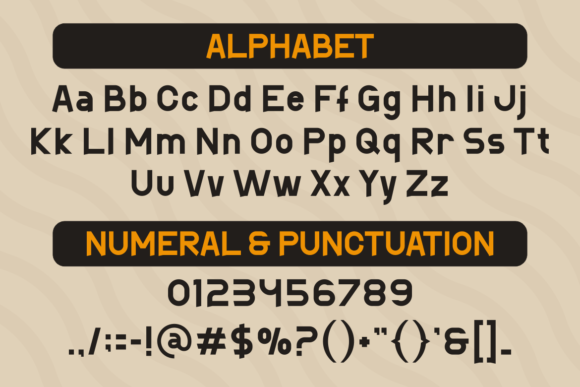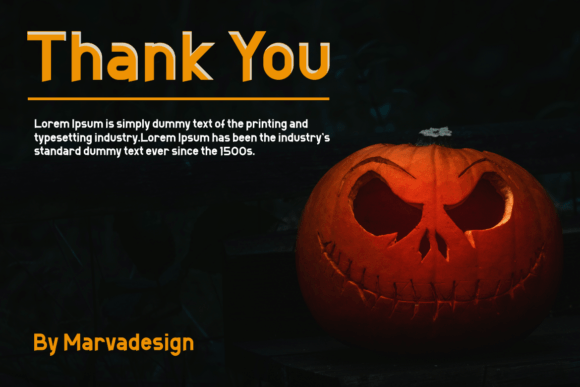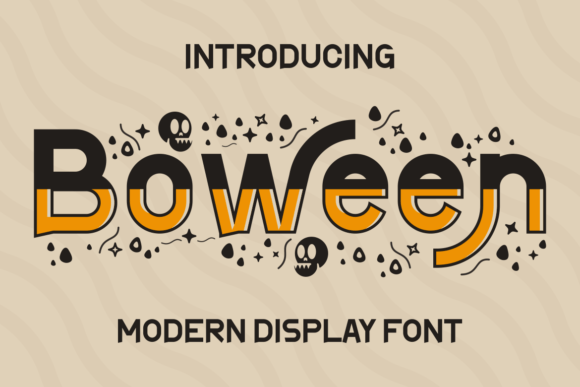
The Boween Font: A Fun and Friendly Display Font to Elevate Your Designs
Have you ever been in the middle of a design project, and suddenly, you’re stuck on finding the perfect font? I recall a recent experience where I was working on a playful branding project for a children’s toy company. The client wanted a font that was both fun and sophisticated, but I just couldn’t seem to find the right fit. That’s when I stumbled upon the Boween font, and it instantly became my go-to choice. In this article, I’ll share my experience with Boween, its features, and how to make the most of it in your designs.
An Honest Review of Boween Font
Boween is a masterfully designed display font that has the potential to bring each of your creative ideas to the highest level. Here’s what I love about it:
- ✨ Unique and playful design: Boween has a distinctive and fun personality that sets it apart from other fonts.
- ✅ Highly versatile: This font can be used for a wide range of projects, from branding and advertising to packaging and digital media.
- 💡 Instant recognition: Boween’s bold and eye-catching design makes it perfect for headlines, titles, and short phrases.
However, I did notice a few small quirks:
- 🤔 Limited use for body text: Due to its bold and playful nature, Boween might not be the best choice for longer blocks of text.
- ⚠️ Requires careful kerning: As with any font, it’s essential to adjust the kerning to ensure that the text looks balanced and visually appealing.
- Experiment with OpenType features, such as stylistic alternates, to add more personality to your text.
- Explore the font’s glyphs and OpenType features, such as ligatures and swashes, to add more creativity to your designs.
The Backstory of Boween Font
Boween was designed with the intention of creating a fun and friendly display font that would inspire creativity and playfulness. The designer aimed to craft a font that would be both unique and versatile, making it perfect for a wide range of projects.
| Font Name | Boween Font |
| Author | Marvadesign |
| What type of projects is Boween best suited for? | Boween is ideal for creative projects, branding, advertising, packaging, and digital media. |
| Can I use Boween for body text? | While Boween can be used for short paragraphs, it’s primarily designed for headlines and titles. For longer blocks of text, a more traditional font might be more suitable. |